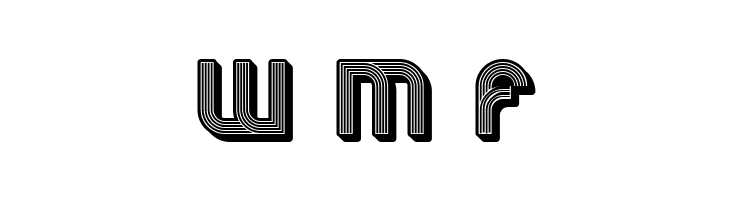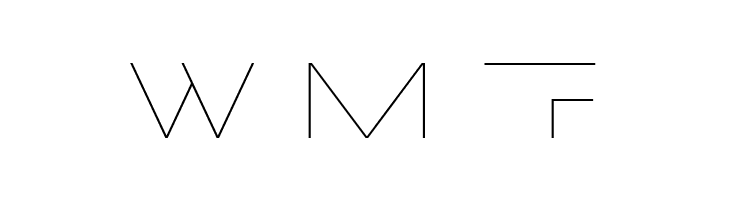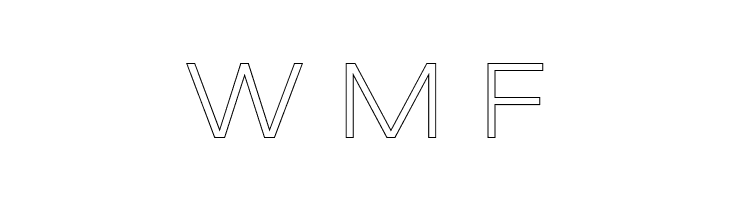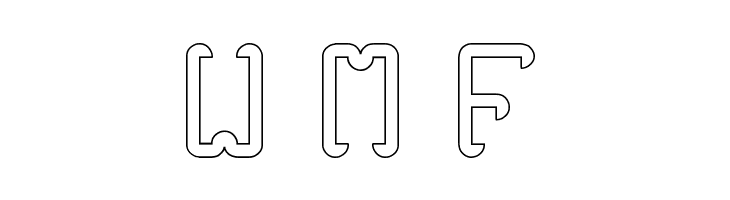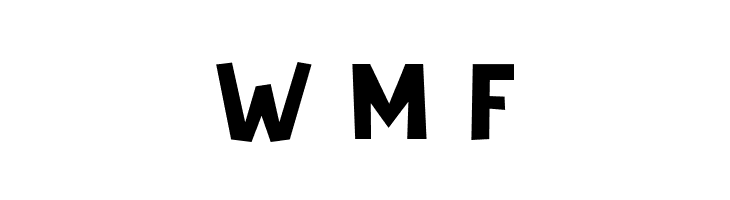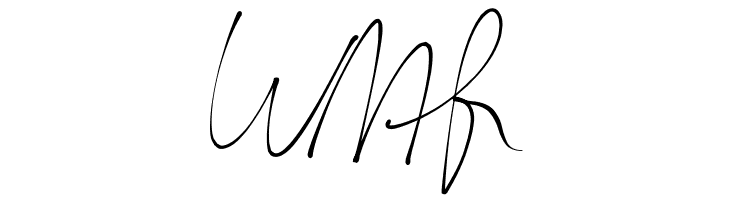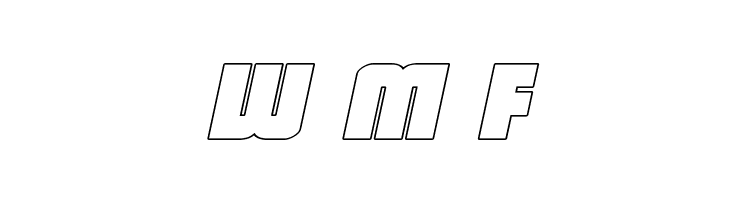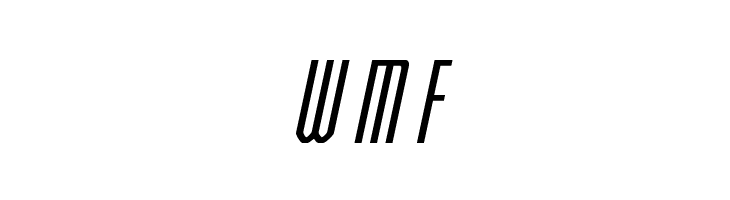
A bold, decorative font with a layered, geometric design.
A playful and friendly font with rounded edges and smooth curves.
A modern, geometric font with thin, linear strokes and a minimalist aesthetic.
A modern, minimalist outline font with thin lines and geometric structure.
A hollow, geometric font with a modern, tech-inspired design.
A bold, playful font with a hand-drawn, friendly appearance.
A thin, modern sans-serif font with clean lines and balanced spacing.
A fluid, handwritten font with an artistic and casual style.
Bold, italicized outline font with a modern and dynamic style.
A modern, italicized font with elongated, narrow characters and an expanded width.